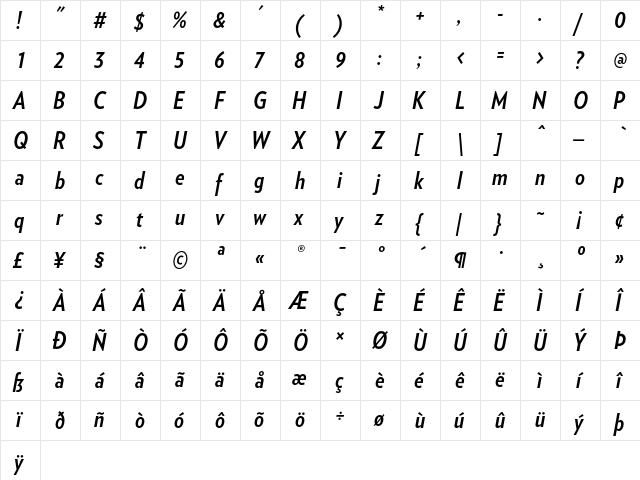
Verlag Condensed Bold Italic Font Preview
| Foundry | Hoefler & Frere-Jones |
| Designer | Hoefler & Frere-Jones |
Design Context for Verlag Condensed Typeface
Verlag Condensed is a composed and adaptable typeface that performs quietly and consistently across a wide range of design contexts. Its italic angle brings a sense of urgency and motion to the letterforms. The heavy weight commands attention and anchors typographic hierarchies. The condensed width makes it efficient for tight spaces without sacrificing legibility.
Pro Tip: Use Verlag Condensed for emphasis, pull quotes, and subheadings where its slanted energy can add rhythm to the layout.